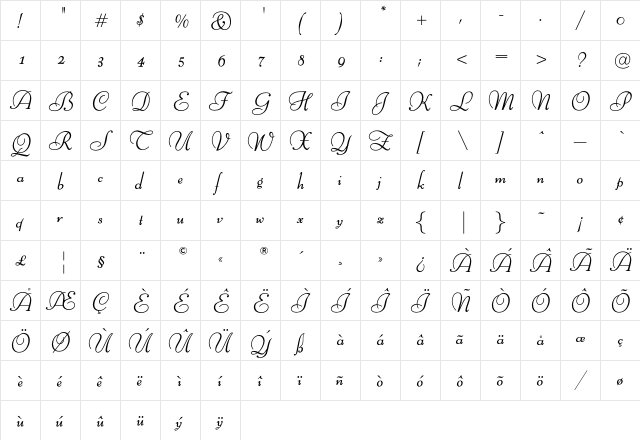
BernardOptiLightCursive Regular Font Preview
Design Context for BernardOptiLightCursive Typeface
BernardOptiLightCursive brings a calligraphic fluidity to the page — its connecting strokes and expressive curves give it an unmistakably human quality. Its slender proportions lend an understated elegance to any composition.
Font Pairing: Combine BernardOptiLightCursive with a simple geometric sans for maximum contrast — the tension between flowing curves and clean structure is a classic typographic pairing.
Pro Tip: Pair BernardOptiLightCursive with a clean sans-serif for supporting text. The contrast between fluid script and geometric structure creates an elegant typographic hierarchy.